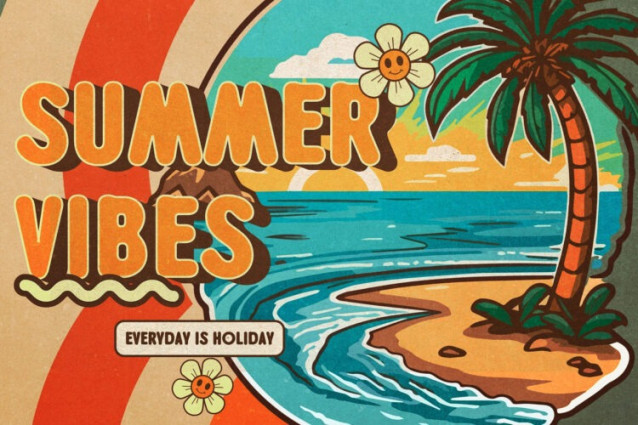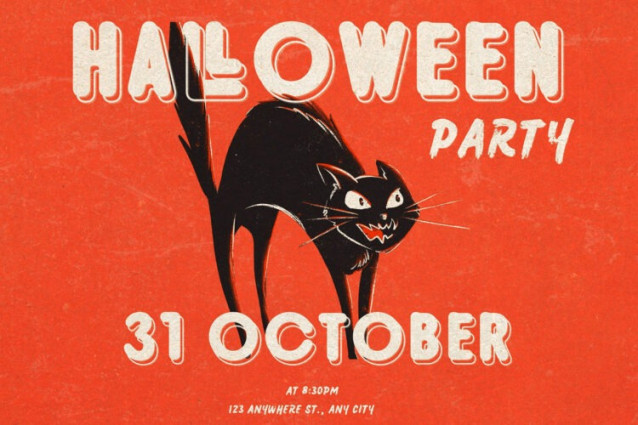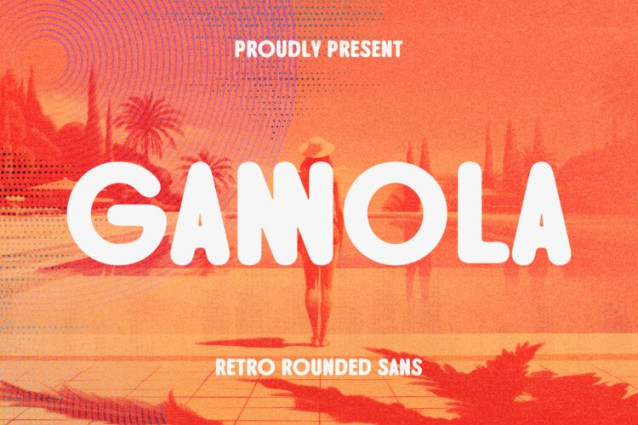
Gannola Font
Gannola Font, Retro Rounded sans serif font with elegant style this is perfect for branding, logos, invitation, magazines, product packaging and more.